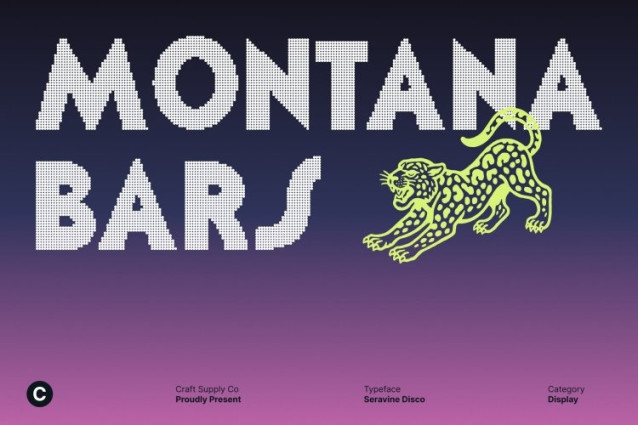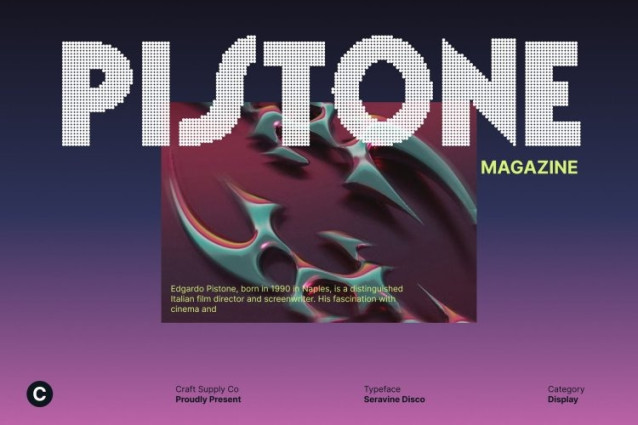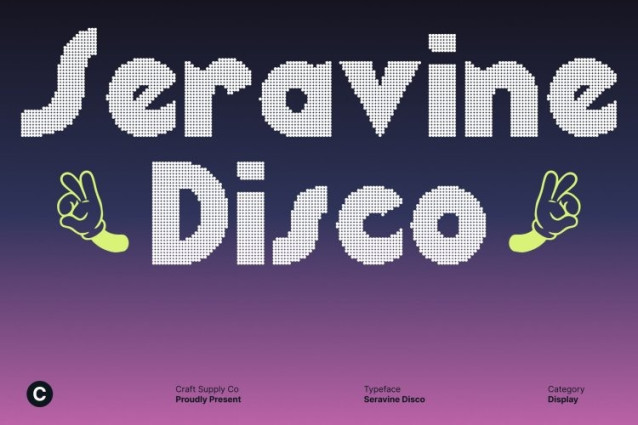
Seravine Disco Font is a bold modern sans serif font that blends strong, clean geometry with a playful disco flair. Its confident letterforms radiate energy and movement, while subtle shimmer-inspired styling adds a touch of sparkle and rhythm.
Vibrant, Stylish, and Full of Groove
Designed to capture the upbeat essence of disco culture, this font brings together boldness and fun in perfect harmony. The clean sans serif base keeps it modern and versatile, while its funky curves and gleaming vibe make every word feel alive with motion and excitement.
Perfect for Posters, Party Designs, and Branding
Ideal for headlines, posters, party designs, and bold branding, this font commands attention while keeping a polished, contemporary look. Whether used for music events, lifestyle brands, or editorial layouts, it adds instant energy and flair.
Modern Boldness Meets Retro Shine
This font celebrates creativity through contrast clean modern shapes paired with a retro disco glow. The result is a typeface that’s both professional and expressive, perfect for designers looking to infuse their work with rhythm, confidence, and shine.